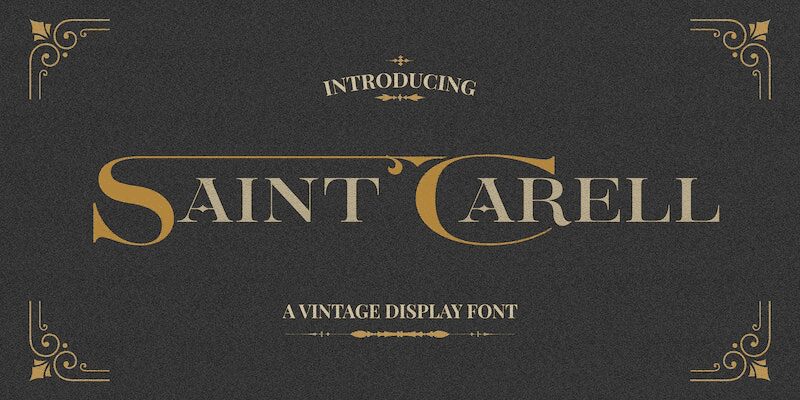
Introducing Saint Carell, a retro display font designed by Mans Greback. Its bold, wide letterforms make it the perfect choice for creating eye-catching logos, posters and apparel designs.